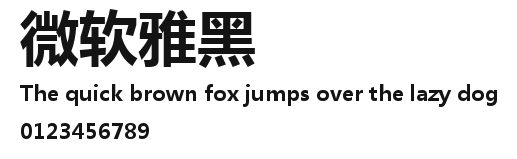
• Font Name: 微软雅黑
• Full Font Name: Microsoft YaHei Gras
• Designer: 北大方正电子有限公司
• Manufacturer: Microsoft Corporation
• Description: Microsoft YaHei is a Simplified Chinese font developed by taking advantage of ClearType technology, and it provides excellent reading experience particularly onscreen. The font is very legible at small sizes.
微软雅黑.ttf is a modern, elegant sans-serif font designed for ultimate readability and visual harmony. Perfect for branding, headlines, web design, and print materials.